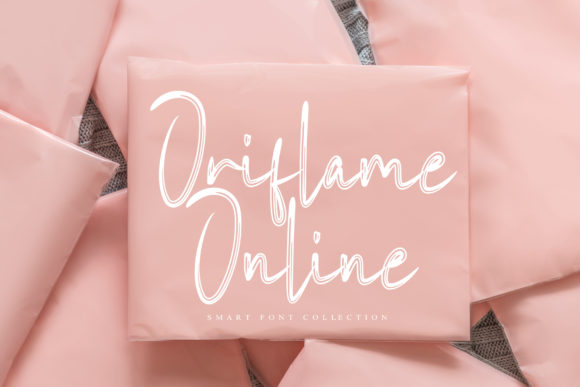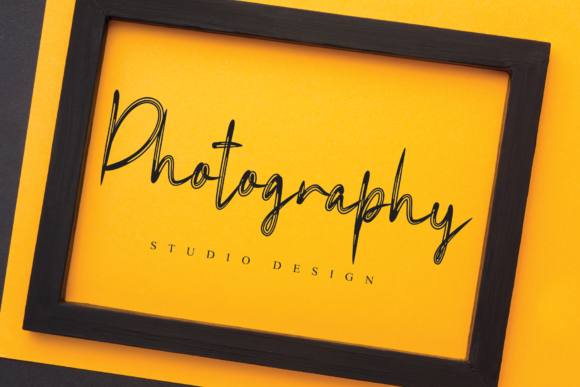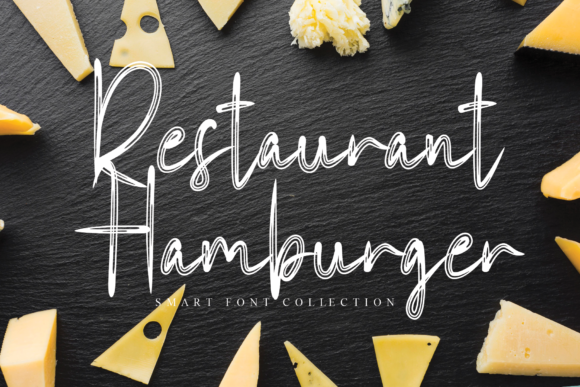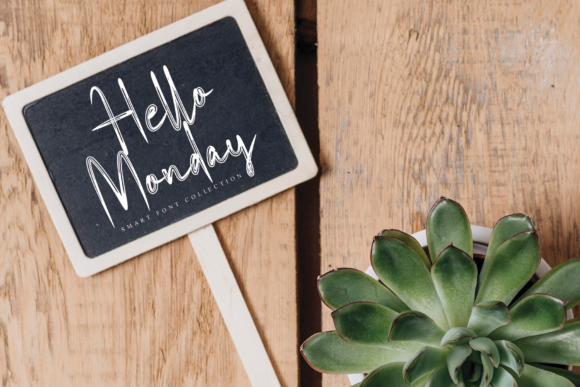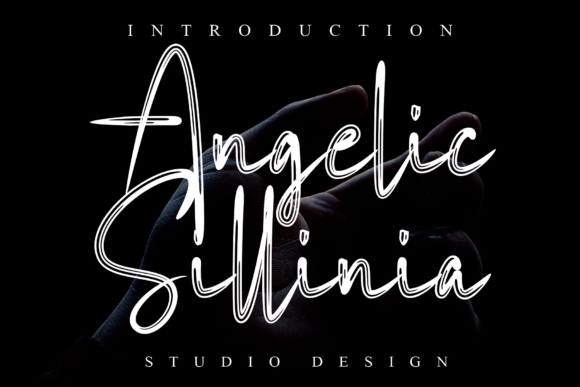
Introducing Angelic Sillinia Font: Add a Touch of Romance to Your Designs
Are you looking for a font that can add a romantic feel to your next project? Look no further than Angelic Sillinia, a lovely brushed handwritten font that features a nice flow. This flexible script font has a wide spectrum of applications, ranging from greeting cards to headlines, and is sure to make your designs stand out.
What Makes Angelic Sillinia Font Special?
Angelic Sillinia Font is a unique and elegant script font that is perfect for designers and crafters who want to add a touch of romance to their work. The font features a beautiful, flowing script that is reminiscent of handwritten calligraphy. The brushed effect gives the font a soft, whimsical feel that is perfect for creating romantic and feminine designs.
Key Features of Angelic Sillinia Font
- Brushed Handwritten Font: Angelic Sillinia Font features a beautiful brushed handwritten effect that gives it a soft and whimsical feel.
- Flexible Script Font: This font is highly flexible and can be used for a wide range of applications, from greeting cards to headlines.
- Romantic Feel: The font is guaranteed to add a romantic feel to your next project, making it perfect for designers and crafters who want to create feminine and elegant designs.
- Elegant and Unique: Angelic Sillinia Font is a unique and elegant script font that is sure to make your designs stand out.
Uses of Angelic Sillinia Font
Angelic Sillinia Font is a versatile font that can be used for a wide range of applications, including:
- Greeting Cards: The font is perfect for creating romantic greeting cards for special occasions such as Valentine’s Day, weddings, and anniversaries.
- Headlines: The font can be used to create elegant and eye-catching headlines for magazines, newspapers, and online publications.
- Logos and Branding: Angelic Sillinia Font can be used to create beautiful and feminine logos and branding materials for businesses and products.
- Social Media Graphics: The font is perfect for creating romantic and engaging social media graphics, such as Facebook posts and Instagram stories.
Tips for Using Angelic Sillinia Font
Here are some tips for using Angelic Sillinia Font in your designs:
- Pair with Other Fonts: The font pairs well with other fonts, such as sans-serif fonts, to create a beautiful and elegant design.
- Use for Headlines and Titles: The font is perfect for use in headlines and titles, where you want to make a statement and add a touch of romance.
- Add a Personal Touch: The font can be used to add a personal touch to your designs, such as in invitations and greeting cards.
Angelic Sillinia Font is a beautiful and elegant script font that is perfect for designers and crafters who want to add a touch of romance to their work. With its brushed handwritten effect and flexible script style, this font is sure to make your designs stand out. Whether you’re creating greeting cards, headlines, or logos, Angelic Sillinia Font is a great choice.